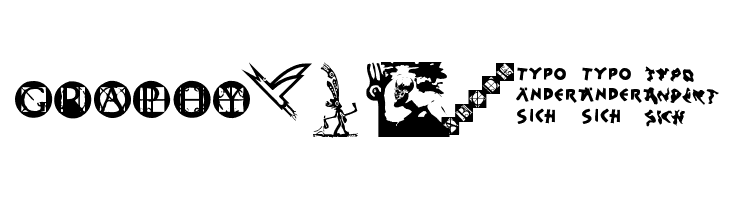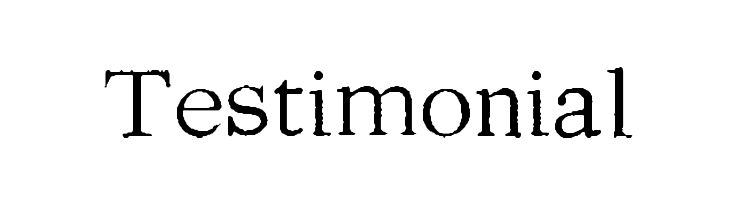
A bold, geometric font with sharp angles and smooth curves, ideal for modern designs.
( Fonts by Nick Curtis - www.nicksfonts.com )
A bold, geometric font with Art Deco influences and sharp serifs.
A playful, hand-drawn font with a casual and whimsical style.
A dynamic, fluid script font with elegant, flowing lines and cursive letterforms.
A graceful and flowing script font with elegant cursive strokes.
A cursive, handwritten font with elegant, flowing lines.
( Fonts by site.xavier.edu/polt/typewriters/ - Richard Polt )
A classic serif font with a vintage, slightly rough texture.
( Rogier van Dalen - home.kabelfoon.nl/~slam/fonts/fonts.html )
A digital-style font with a blocky, geometric design, ideal for tech-themed projects.